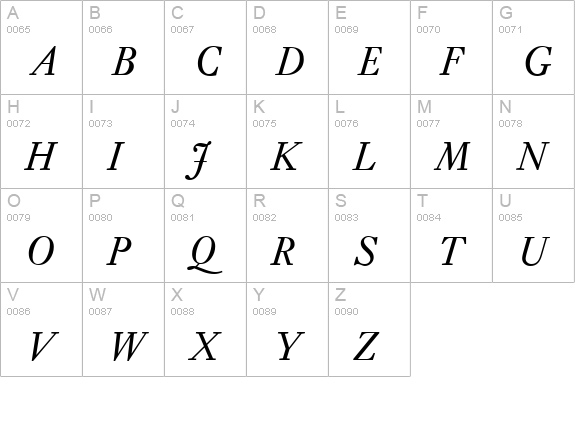
E720-Roman-Italic is a distinctive, italic variant in the E720 typeface family \xE2\x80\x94 well suited to design and typography projects.
E720-Roman-Italic is a classic and elegant font that exudes sophistication and style. With its graceful curves and timeless appeal, this font is perfect for adding a touch of refinement to any design project. The italic style adds a sense of movement and elegance, making it ideal for conveying a sense of sophistication and class. What makes E720-Roman-Italic even more appealing is that it is available for free download at FontsMarket.com. This means that you can easily access this stunning font and use it in your projects without any cost. Whether you're working on a branding project, creating invitations, or designing a website, E720-Roman-Italic is sure to elevate your designs and leave a lasting impression. Don't miss out on the opportunity to enhance your projects with this beautiful font. Download E720-Roman-Italic for free today and take your designs to the next level!